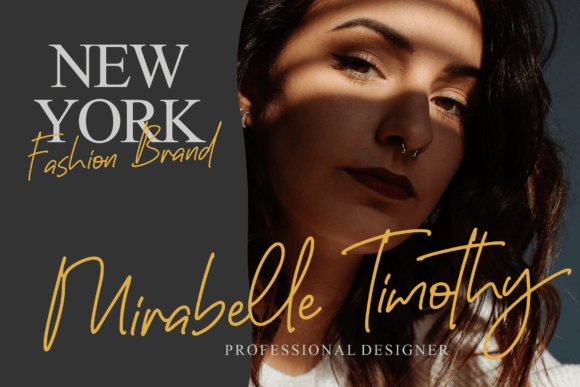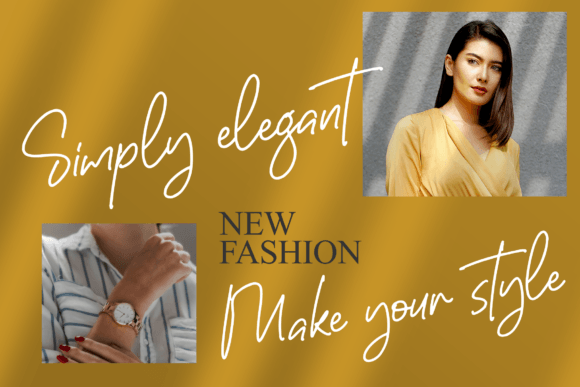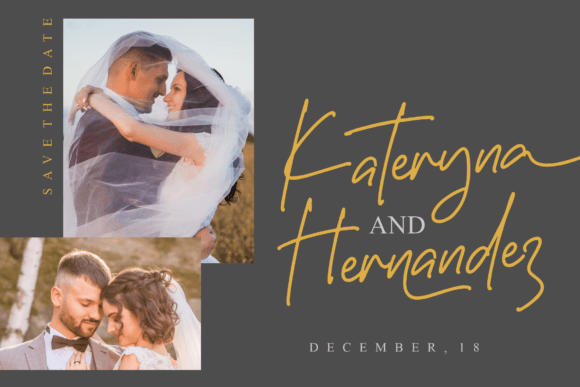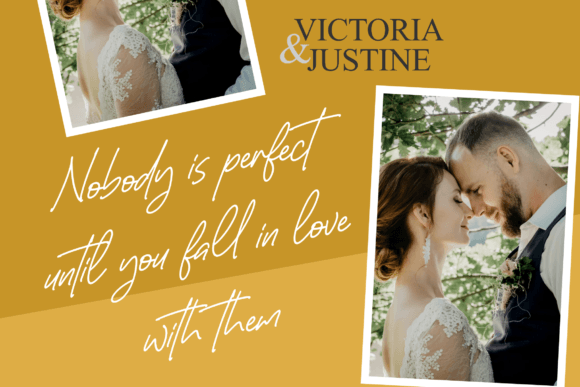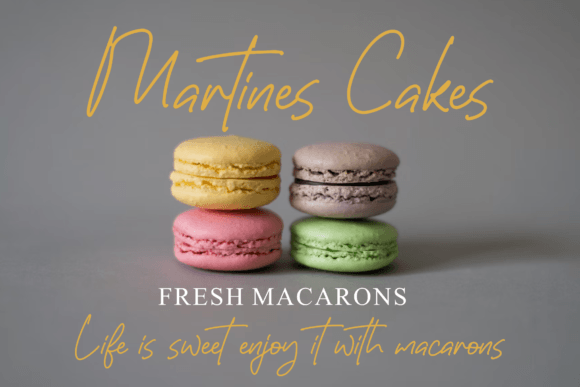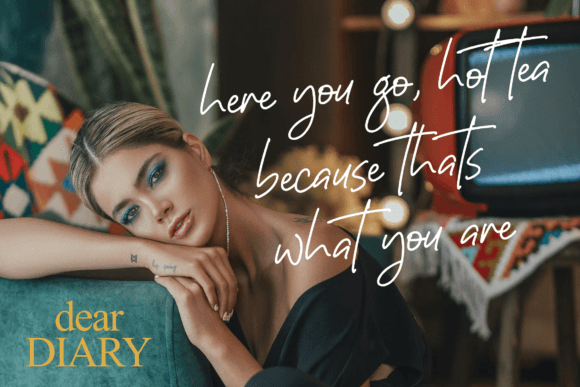
Introduction to Emitanela Font
Have you ever been working on a creative project, pouring your heart and soul into it, only to find that the perfect font is just out of reach? You envision a beautiful, high-quality design, but the font you’ve been using just isn’t doing it justice. That’s where the Emitanela Font comes in – a stunning, free download that’s sure to elevate your design to the next level.
With its unique, monoline script style and intricate details, the Emitanela Font is the perfect design resource for creatives who want to add a touch of elegance and sophistication to their work. Whether you’re working on a personal project or a client brief, this font is sure to impress. Plus, its transparent background makes it easy to customize and pair with other design elements.
As a valuable resource for designers, the Emitanela Font offers a level of flexibility and creativity that’s hard to find. Its extraordinary balance and flow make it perfect for a wide range of applications, from wedding invitations to branding materials. So why settle for a lackluster font when you can have the Emitanela Font – a true game-changer for any design project.
Key Features of Emitanela Font
- High quality: This font is designed with high-quality glyphs, ensuring a professional look in any creative project.
- Transparent background: The font’s transparent background allows for easy integration with any design element, giving you more creative freedom.
- Unique characteristics: The Emitanela Font features a unique blend of modern and elegant styles, making it perfect for creative projects that require a touch of sophistication.
Honest Review: Emitanela Font
As a designer, I’m always on the lookout for unique and high-quality design resources to elevate my creative projects. I recently stumbled upon the Emitanela Font, and I’m excited to share my honest review with you.
Here are some of the things that work well for the Emitanela Font:
- ✨ Unique and modern design style that adds a touch of elegance to any project.
- ✨ Highly customizable, making it perfect for a variety of creative projects.
- ✨ Offers a transparent background, making it easy to use on any design surface.
However, I did encounter some limitations with the Emitanela Font:
- ⚠️ The font may not be suitable for projects that require a lot of bold or heavy typography.
Overall, I’m impressed with the quality and design of the Emitanela Font. It’s a great addition to any designer’s toolkit, and it’s free to download, making it a valuable design resource.
The Emitanela Font is suitable for a variety of creative projects, including:
– Digital art
– Graphic design
– Branding
– Marketing materials
The Emitanela Font is designed to be a high-quality font, with clear and legible characters. It’s suitable for use in a variety of design projects, including print and digital media. The font’s high quality is due in part to its advanced font rendering capabilities, which ensure that the text looks great at a range of font sizes and resolutions.